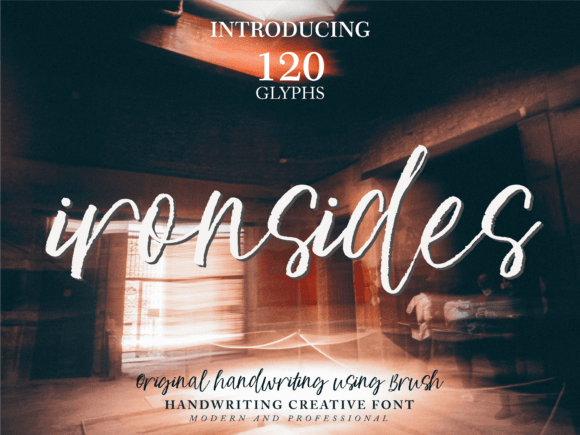
The Perfect Brush for Your Creative Masterpiece
Remember that moment when you were brainstorming ideas for your next project, and the perfect font just didn’t seem to come to mind? The typeface that would elevate your design, make it stand out, and leave a lasting impression on your audience? For designers like us, this is a common struggle, but what if I told you that there’s a solution to this problem?
Enter the Ironsides Font, a stunning brush handwritten font that’s perfect for a variety of creative projects. Whether you’re designing wall displays, wedding invitations, or social media post logos, Ironsides Font is the perfect brush to add an extra layer of sophistication and elegance to your work. Its versatility and impressive typography make it a valuable asset for designers, allowing you to take your projects to the next level and leave a lasting impact on your audience.
- Unique Characteristic: Distinctive, hand-drawn aesthetic with a vintage feel, reminiscent of early 20th-century typography
Ironsides Font Review
I’ve had the chance to work with the Ironsides font, and I have to say it’s a mixed bag. ✨ On the plus side, the font does have a unique, bold aesthetic that can add a touch of sophistication to certain designs. The thick, modern lines and subtle curves work well for headlines and titles, making it a great choice for titles and banners.
- Unique aesthetic that can add a touch of sophistication to designs
- Great for headlines and titles
- Works well for modern and minimalist designs
However, ⚠️ there are some limitations to consider. The font can feel a bit overbearing, especially in body text, which can be difficult to read. Additionally, the font doesn’t have a lot of character variations, which can make it feel a bit one-dimensional.
- Can feel overbearing in body text
- Limited character variations
- May not be suitable for small text sizes
Overall, I’d say the Ironsides font is a solid choice for specific design projects, but it may not be the best fit for everything. It’s a good option for modern and minimalist designs, but it’s not a versatile font that can handle a wide range of tasks.
Tips for Getting the Most Out of Ironsides Font
To get the most out of Ironsides Font, use it in bold and italic styles to create a sense of hierarchy and emphasis. Pair the font with a clean and simple background to let the font take center stage. Use the font for headings and titles to create a professional and modern look.
Ironsides Font is commonly used in modern branding, marketing materials, and digital products. It’s particularly effective for creating a sense of sophistication and elegance. Use the font in logos, business cards, and websites to create a cohesive and professional look.
Q: What is the recommended font size for using Ironsides?
The recommended font size for using Ironsides depends on the specific application and the intended use of the font. However, as a general guideline, we recommend using Ironsides at font sizes of 10pt or larger for body text, and 14pt or larger for headings and titles.